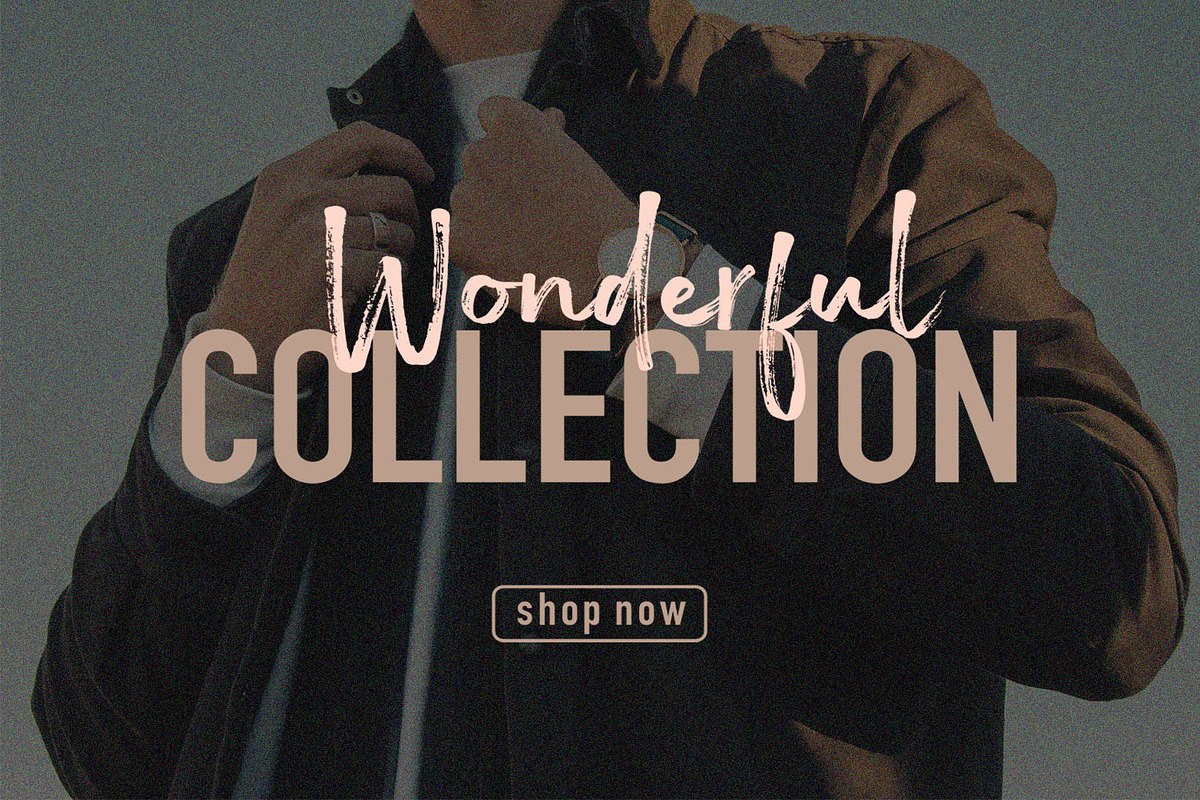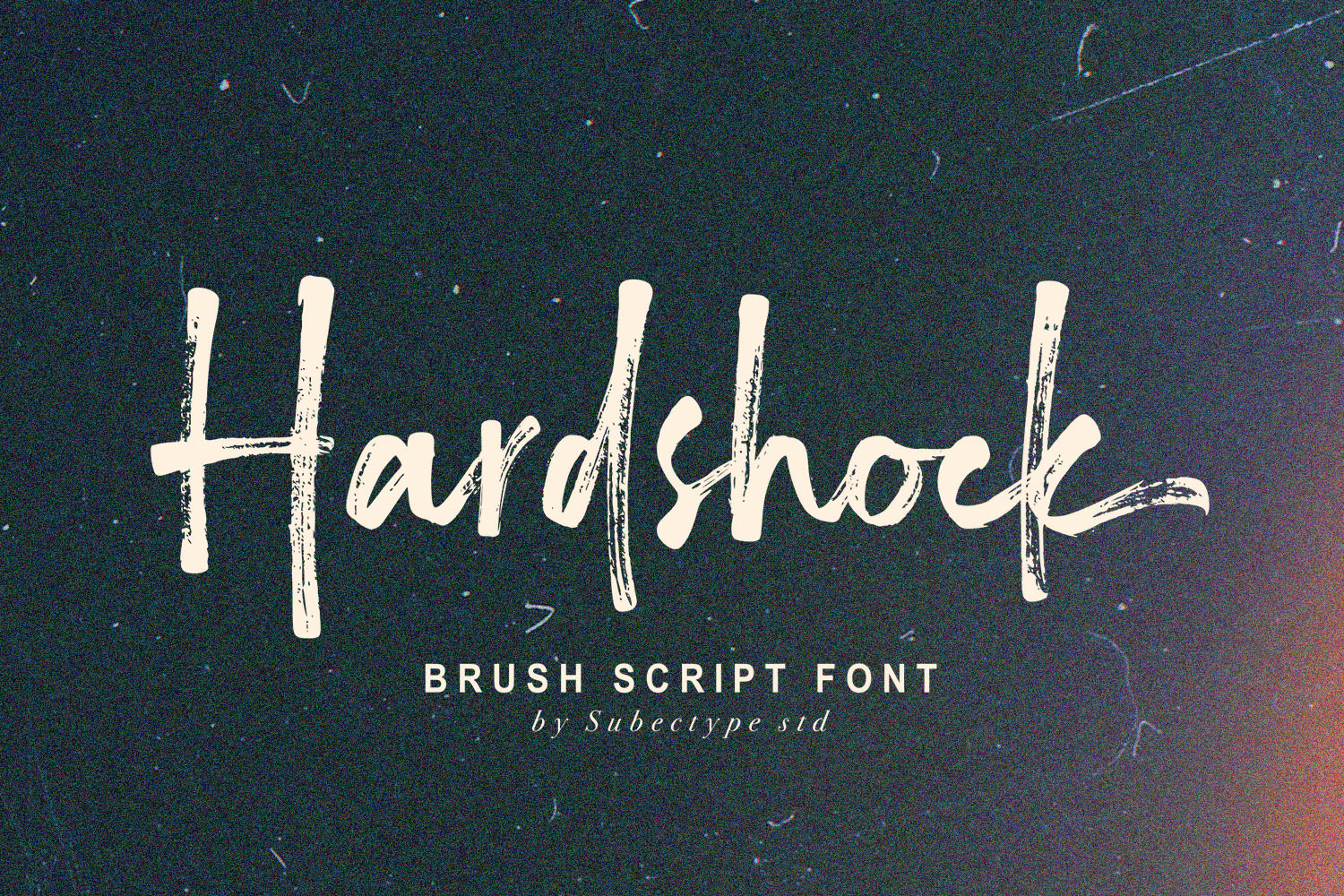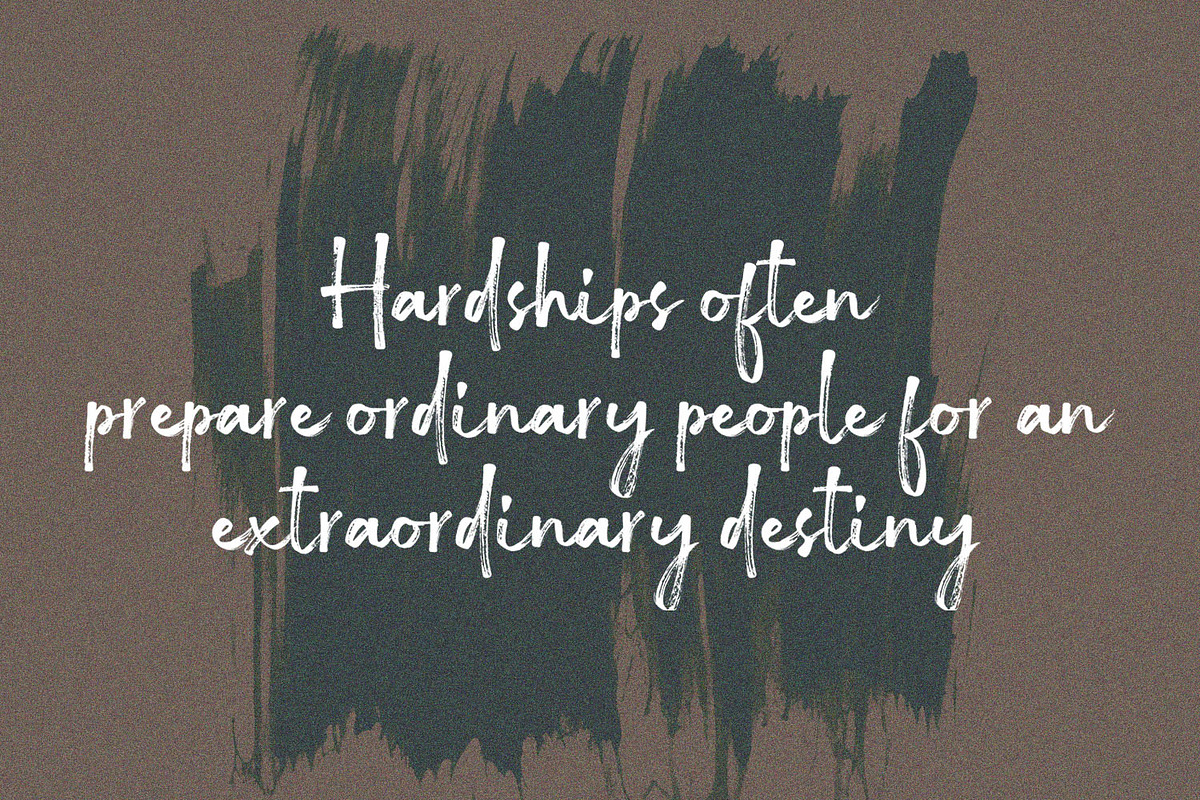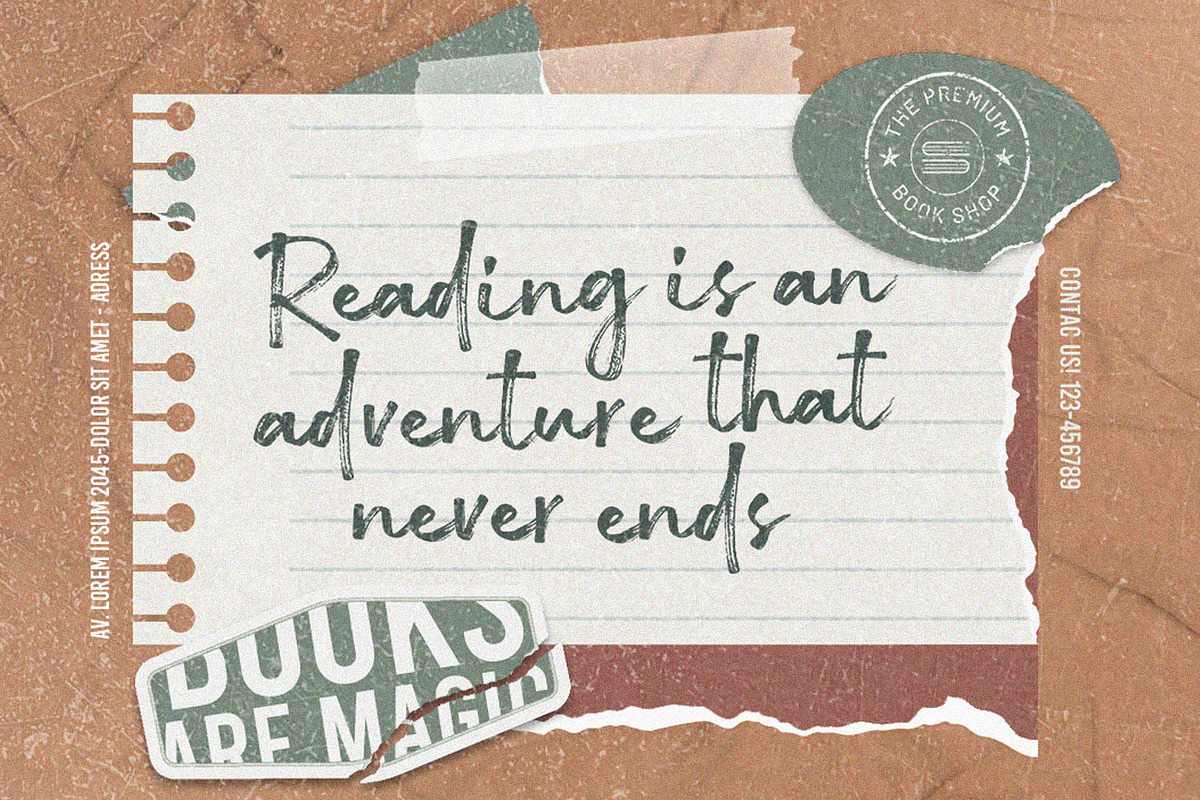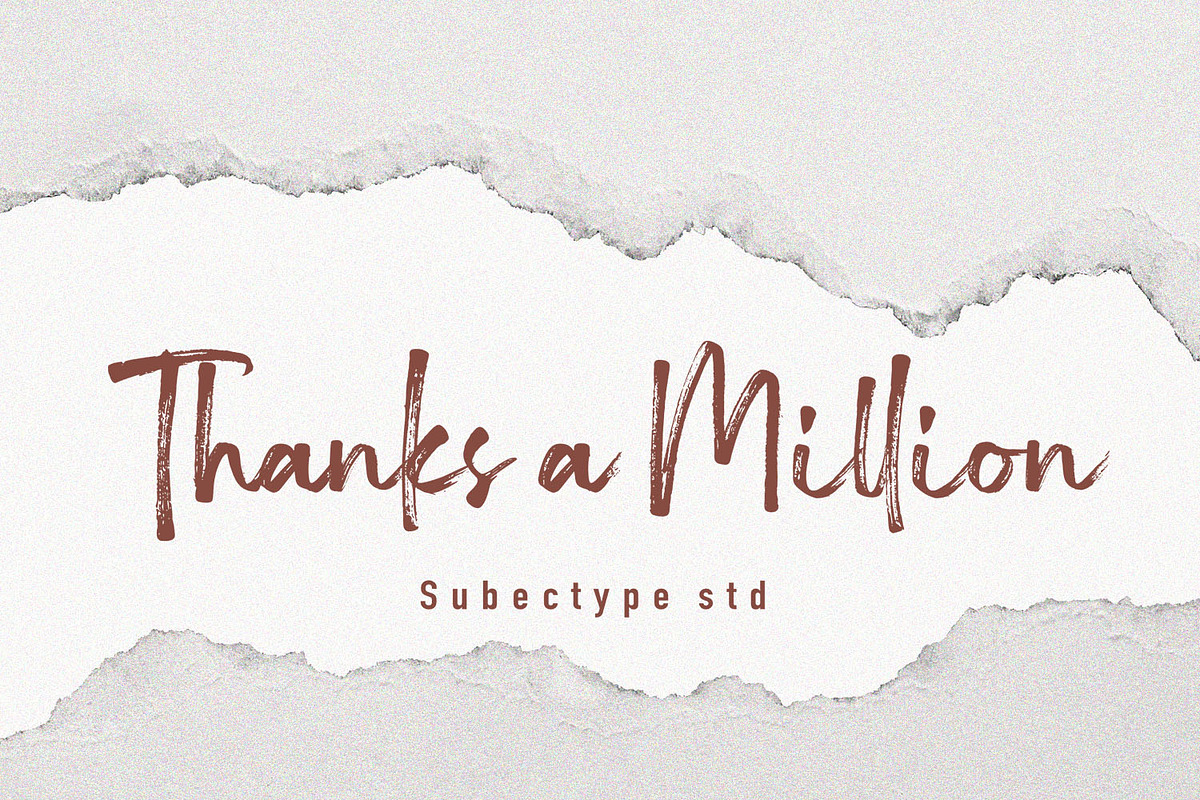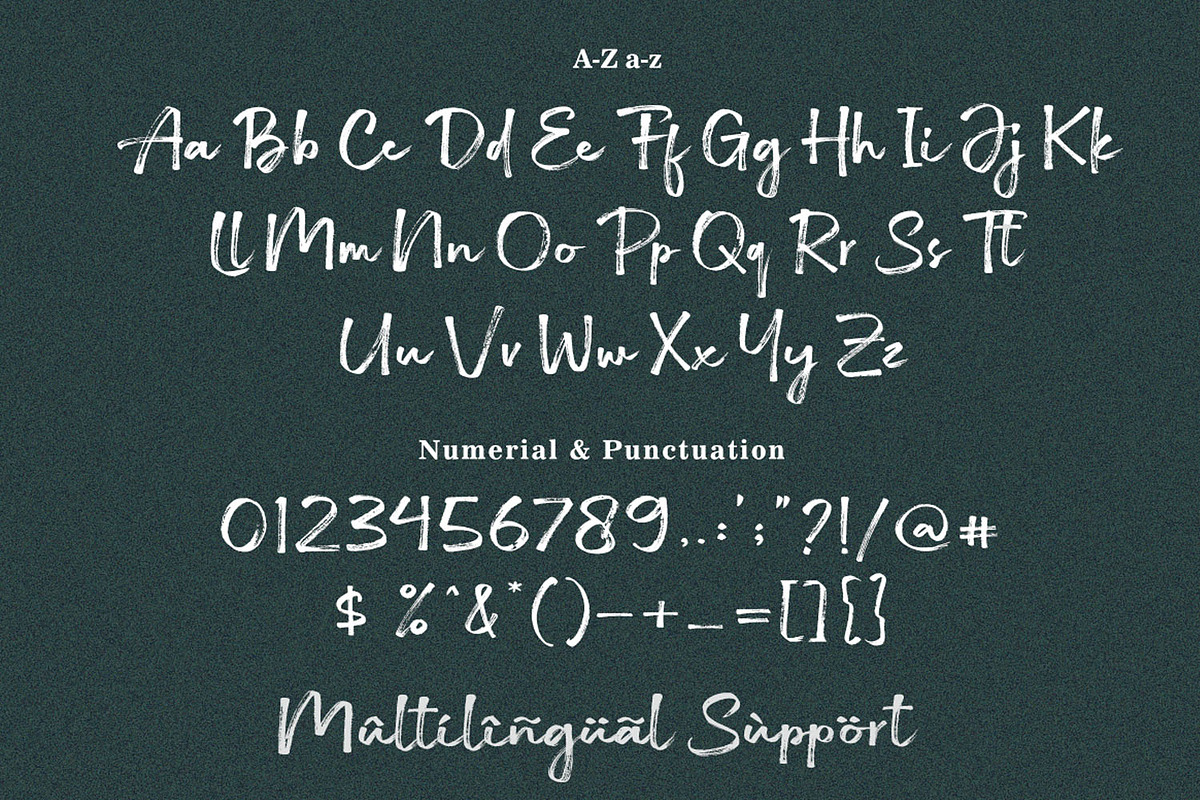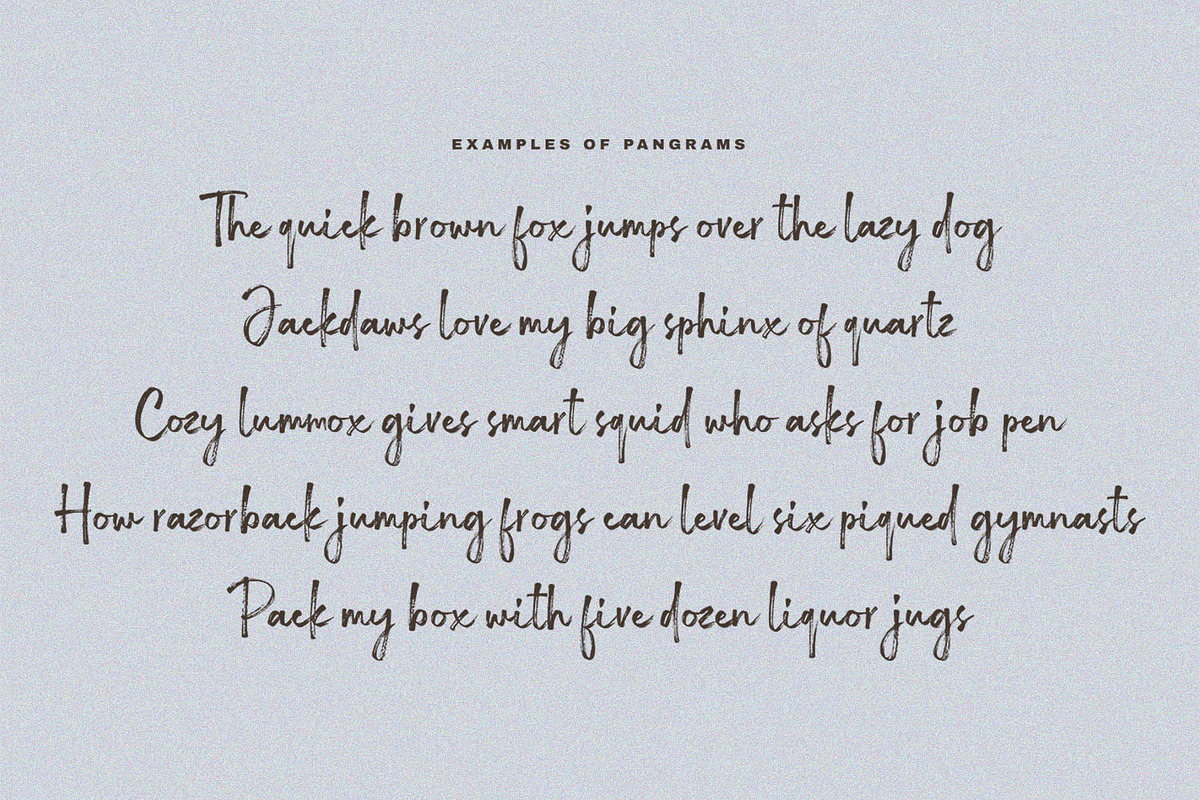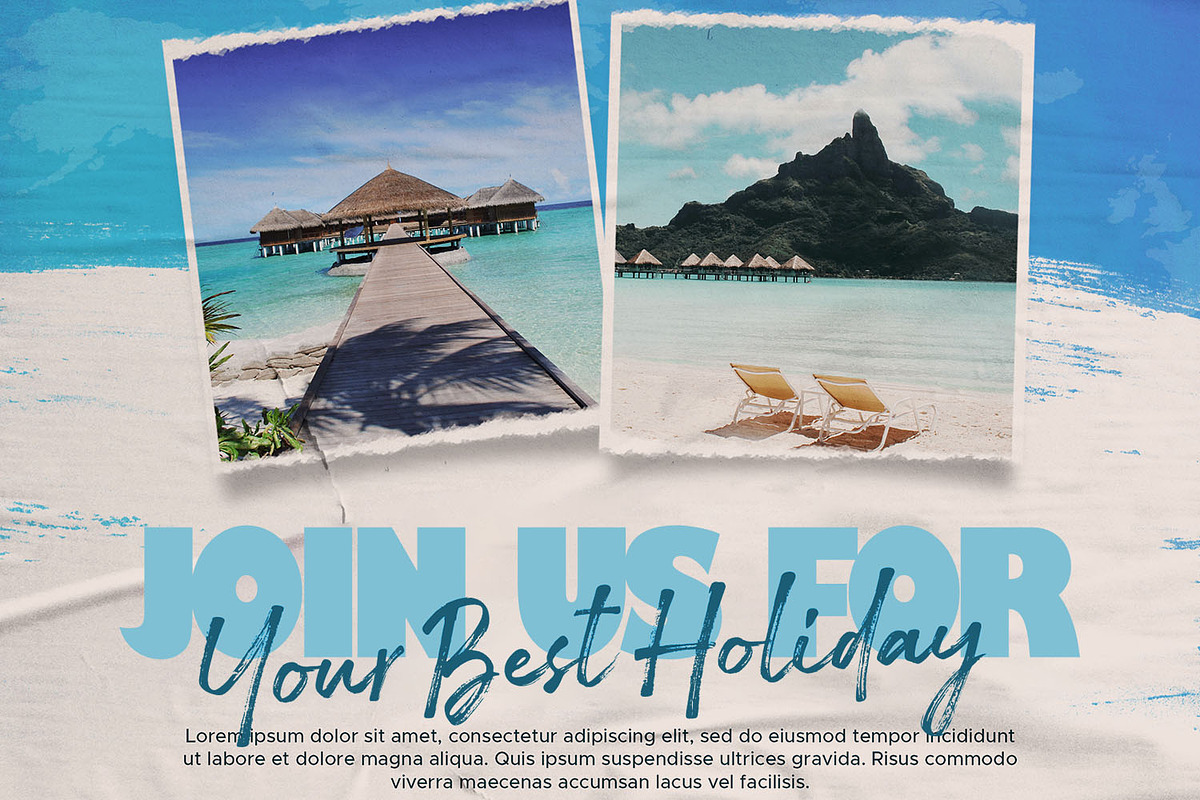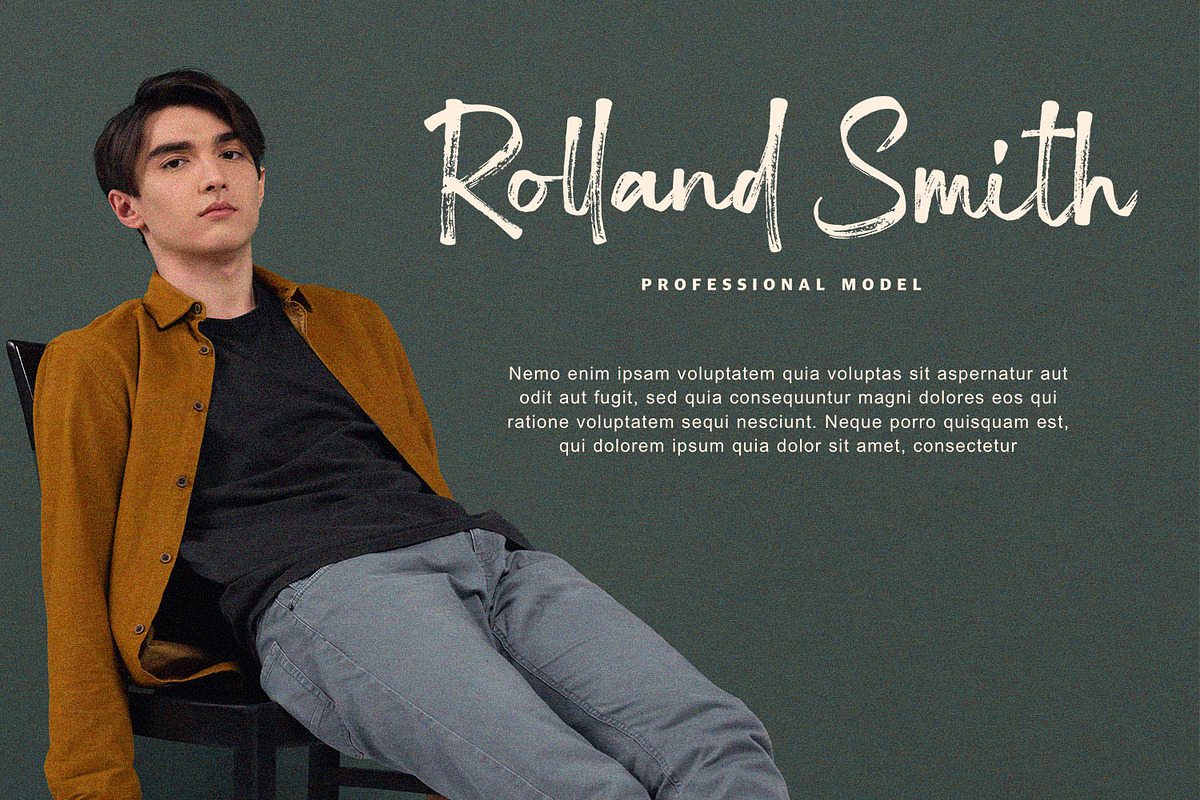
Hardshock - Brush Script Font
Hardshock is a handwritten brush script font. This font imparts a casual and natural appearance brush style. This font can convey a range of moods, from relaxed and friendly to artistic and eccentric. Making your message or artwork visually engaging and deeper in its impact. Hardshock is ideal for logos, quotes, product packaging, or anything which needs a typographic turbo-boost.